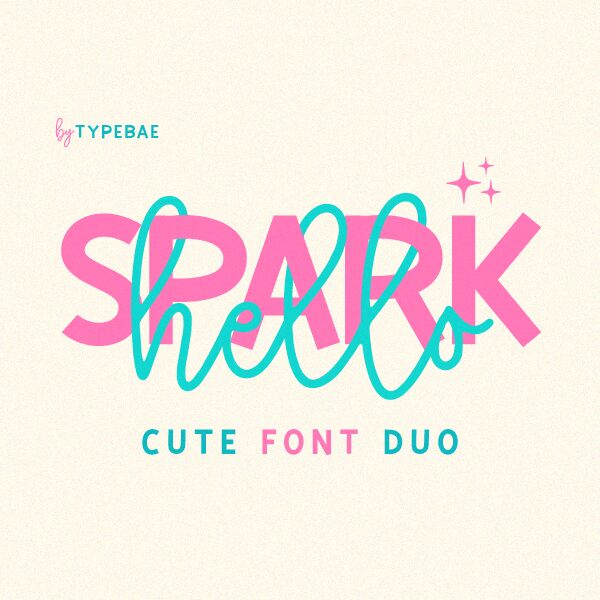
Hello Spark Script
Hello Spark Script font by Typebae Foundry is a stylish handwritten font that combines casual elegance and artistic flair. Its school script style gives it an expressive look suitable for decorative tasks where the font can add its charming and personal touch. Hello Spark has a very light appearance, but it’s still impactful as any modern script typeface.
This free handwritten font is perfect for use in greeting cards, letter design, posters, social media posts, and various marketing materials such as flyers and brochures. Additionally, Hello Spark would work well in logos and branding designs of clothing stores or women’s beauty products brands that want to appear more natural and fashionable.